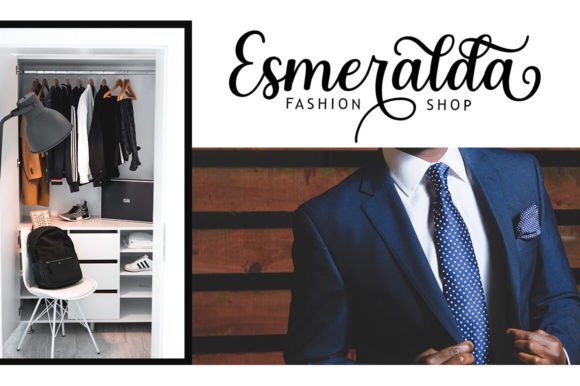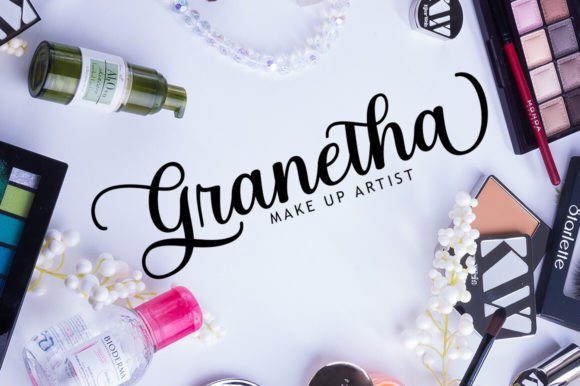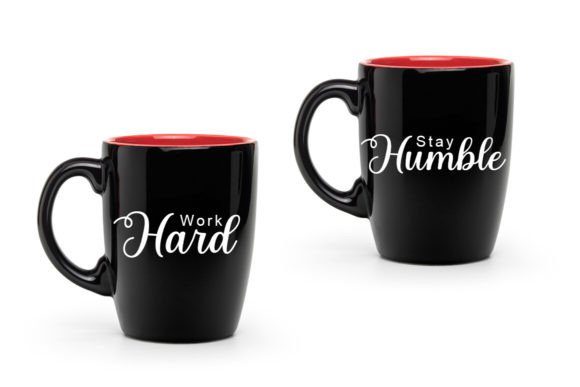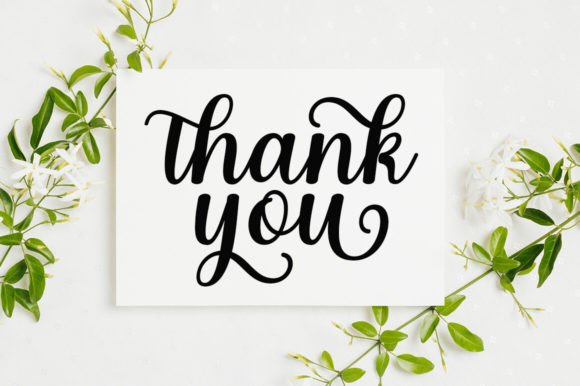
Discover the Charm of Granetha Font: Elevate Your Designs with a Touch of Whimsy
Are you searching for a font that embodies the warmth and nostalgia of late summer days? Look no further than Granetha, a charming handwritten font that is sure to capture the essence of the season. With its flowing lines and elegant curves, Granetha brings a touch of sophistication and playfulness to any project, making it perfect for designers and crafters alike.
The Beauty of Granetha
Granetha is more than just a font – it’s an experience. With every stroke, you’ll feel the gentle warmth of a summer breeze, the softness of a sunset, and the whimsy of a lazy afternoon. This delightful font is designed to evoke a sense of nostalgia and wonder, making it perfect for projects that require a personal touch.
Granetha is a versatile font that can be used in a wide range of projects, from invitations and greeting cards to quotes and more. Whether you’re designing a wedding invitation, a birthday card, or a social media post, Granetha adds a special and whimsical touch that is sure to delight. Her elegant curves and flowing lines make her perfect for:
- Invitations: Weddings, baby showers, birthday parties, and more
- Greeting cards: Birthdays, holidays, get well cards, and more
- Quotes: Inspirational quotes, love quotes, and more
- Social media posts: Add a touch of whimsy to your Instagram, Facebook, and Twitter posts
- Blog posts: Add a personal touch to your blog posts and make them stand out
Why Choose Granetha?
So why choose Granetha over other fonts? Here are just a few reasons why Granetha stands out:
- Unique and whimsical: Granetha has a one-of-a-kind charm that will set your designs apart from the rest.
- Elegant and sophisticated: Despite her playful nature, Granetha has an elegance that makes her perfect for formal and informal projects alike.
- Easy to read: Granetha’s flowing lines and clear curves make her easy to read, even at small sizes.
- Versatile: Granetha can be used in a wide range of projects, from digital designs to print materials.
Tips for Using Granetha
To get the most out of Granetha, here are a few tips to keep in mind:
- Pair her with contrasting fonts: Granetha’s elegance shines when paired with contrasting fonts, such as bold sans-serifs or elegant scripts.
- Experiment with colors: Granetha looks beautiful in a range of colors, from soft pastels to rich jewel tones.
- Don’t be afraid to get creative: Granetha’s whimsical nature makes her perfect for experimental designs and artistic projects.
In conclusion, Granetha is a charming handwritten font that is sure to capture the essence of late summer days. With its flowing lines and elegant curves, Granetha brings a touch of warmth and nostalgia to any project, making it perfect for designers and crafters alike. Whether you’re designing invitations, greeting cards, quotes, or more, Granetha adds a special and whimsical touch that is sure to delight. So why wait? Embrace the beauty of Granetha with every stroke of this delightful font.